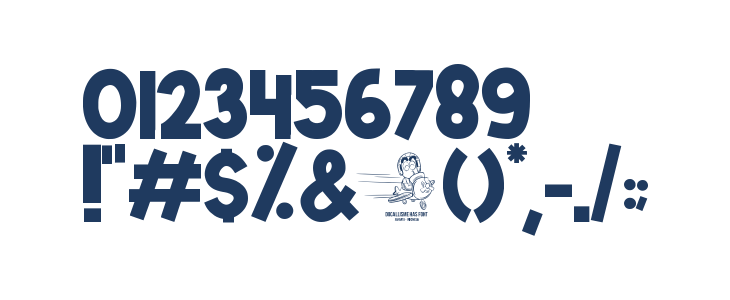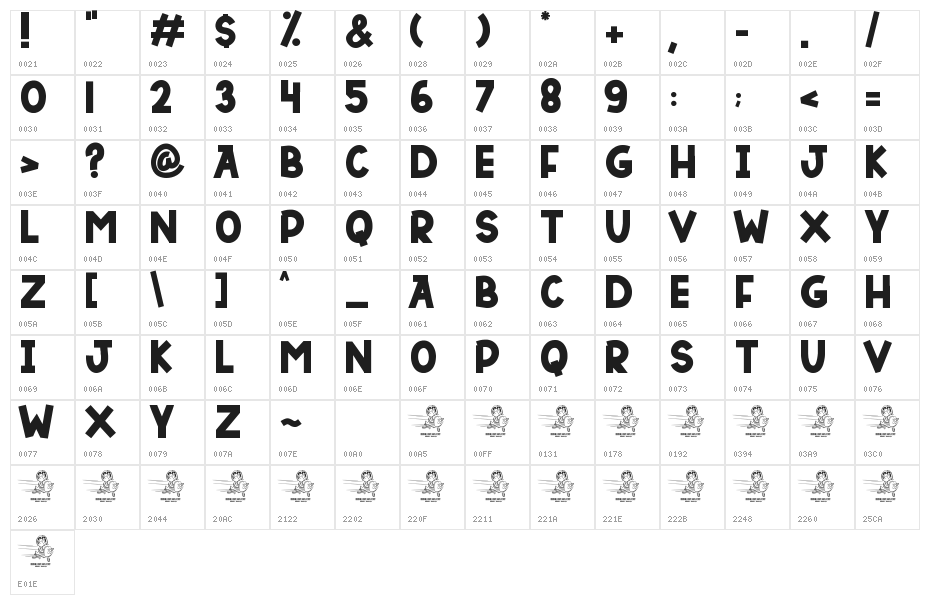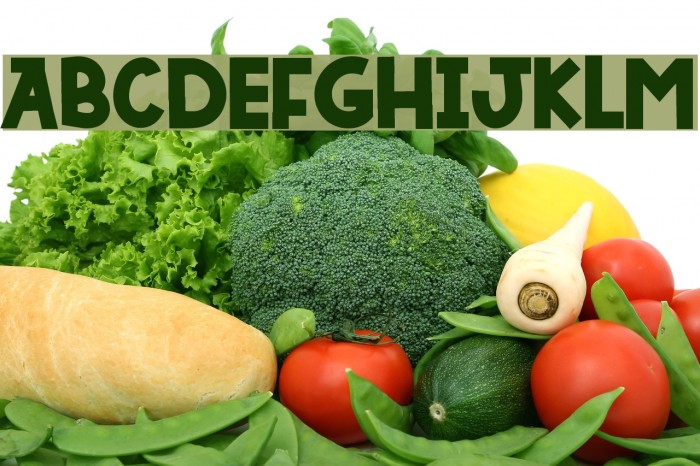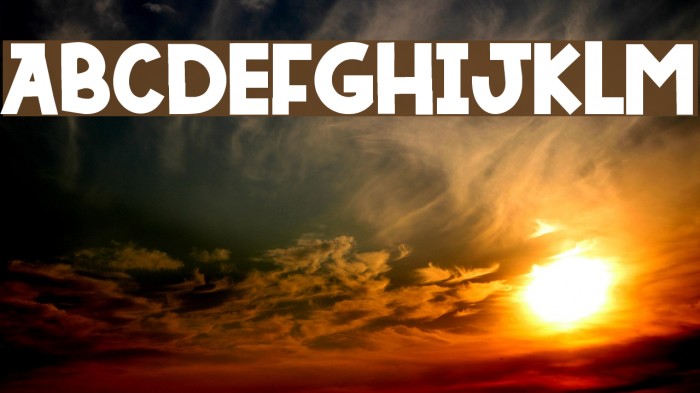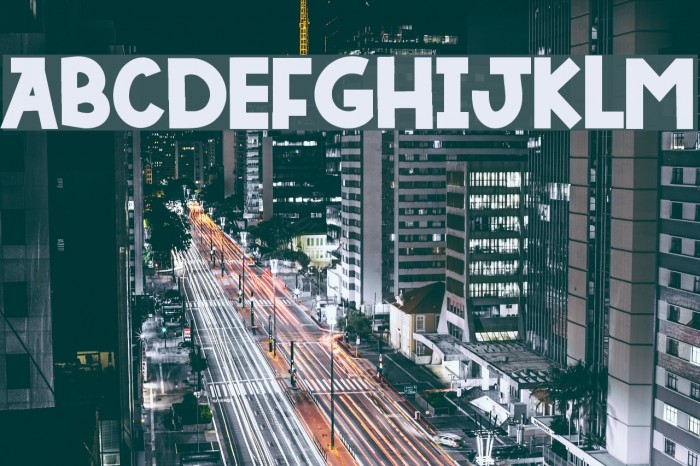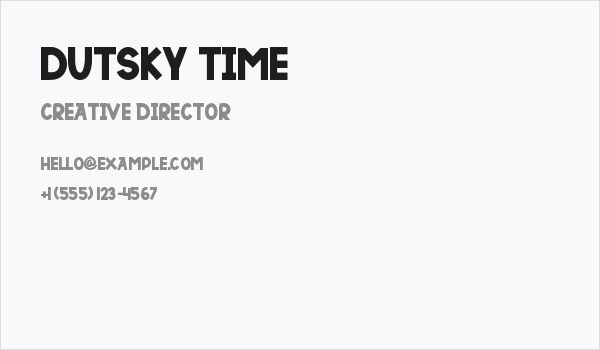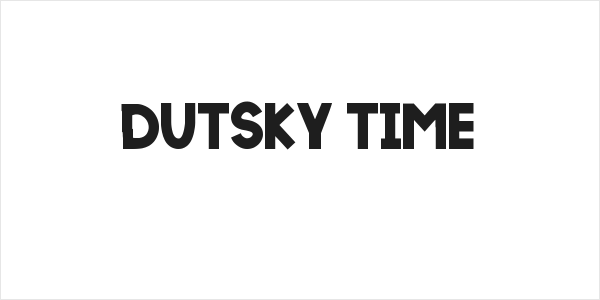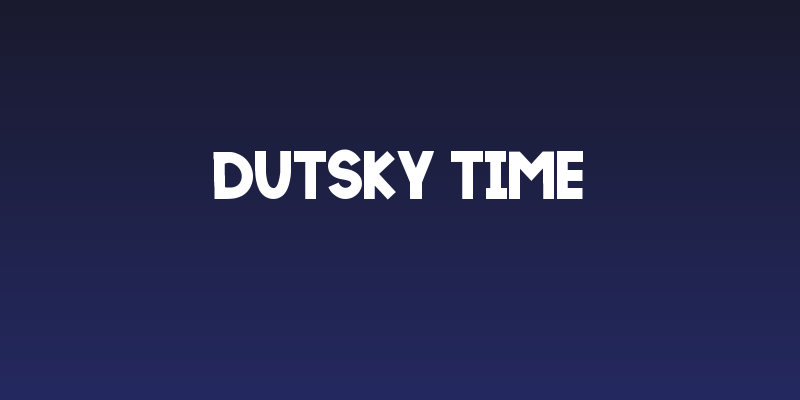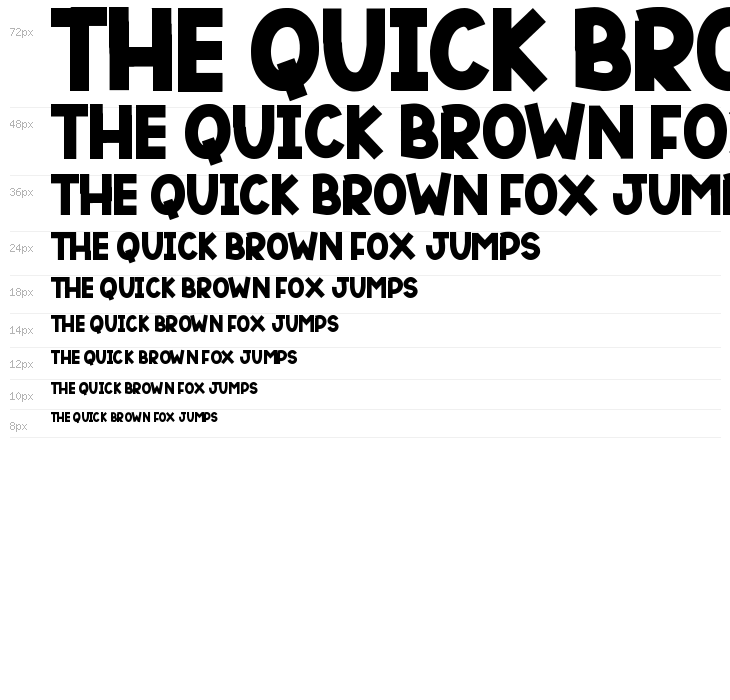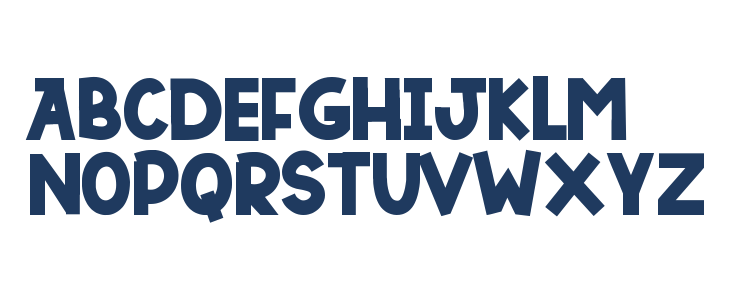
DUTSKY TIME Font
DUTSKY TIME Description
This font exhibits a bold and playful style, characterized by thick, uniform strokes and a slightly condensed appearance. The letters are blocky with rounded edges, giving them a friendly and approachable look. The uppercase and lowercase letters maintain a consistent weight, ensuring readability and balance. The numerals are similarly styled, with a robust presence that matches the alphabetic characters. Special characters are included, maintaining the same bold and playful aesthetic. This font is ideal for designs that require a strong visual impact with a touch of whimsy.
| Overall Style | Playful, Bold |
| Proposed Projects | Perfect for children's books, playful branding, posters, and any design needing a fun, bold statement. |